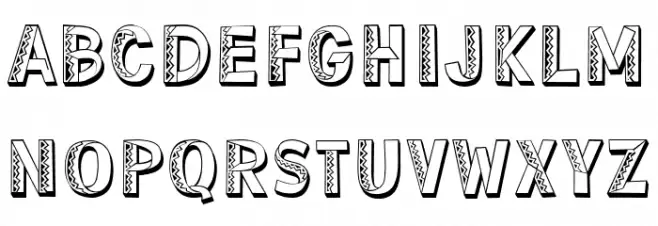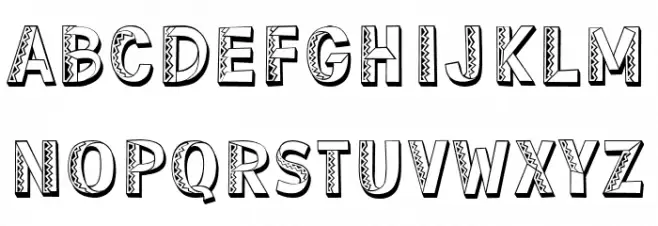
Leather Jacket Regular Font
Leather Jacket Regular Description
A bold, uppercase decorative display font with a 3D shadow effect and intricate patterned fills inside each letter, giving a textured, hand-drawn appearance. The outlines are thick and the internal patterns vary between zigzags, dots, and lines, adding a playful and dynamic feel.
Bold, patterned, 3D decorative display font with hand-drawn textures from Uncategorized fonts.
- Proposed Projects: Posters, event flyers, children’s book covers, branding for creative businesses, party invitations.
- Overall Style: Decorative, Playful, Hand-drawn